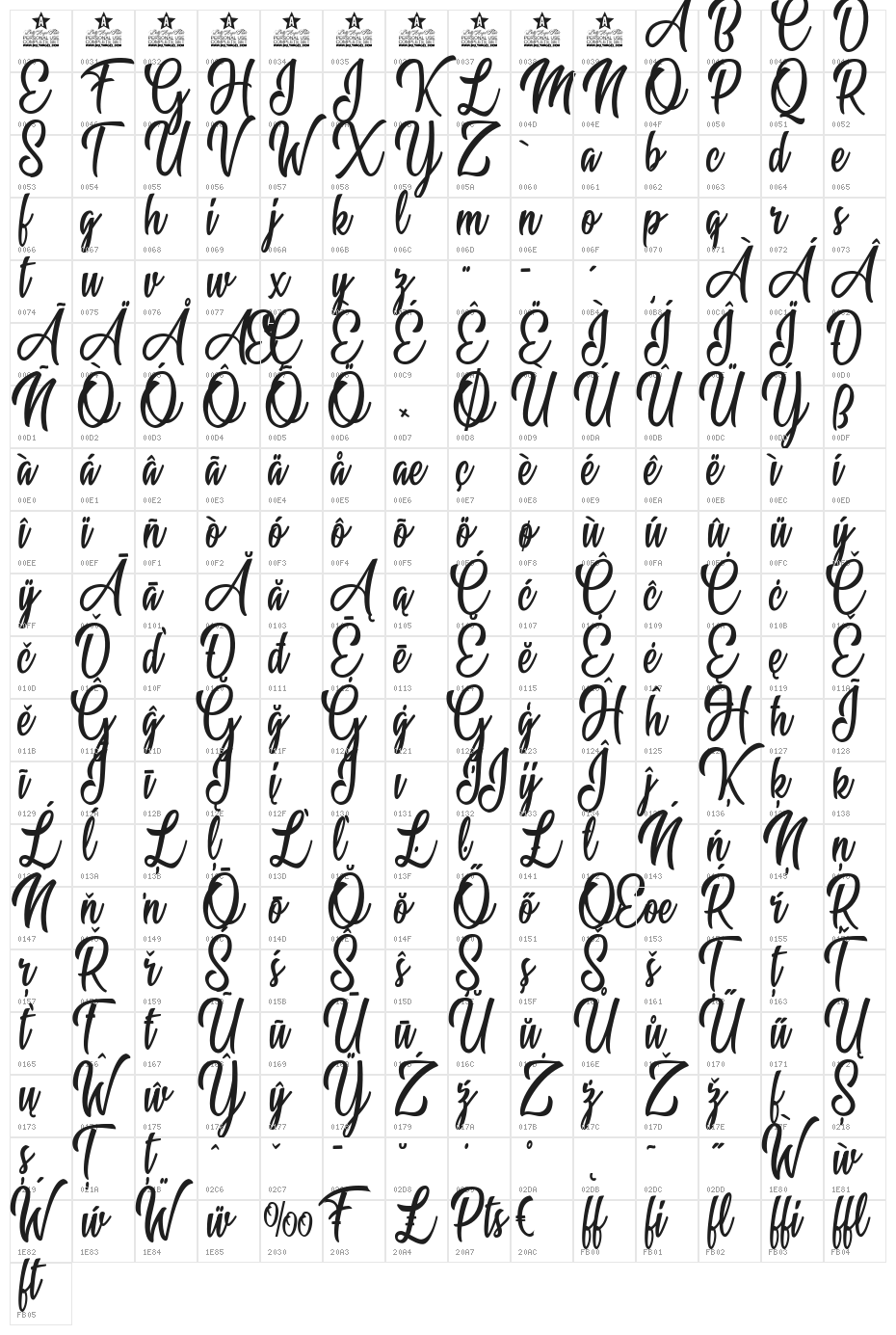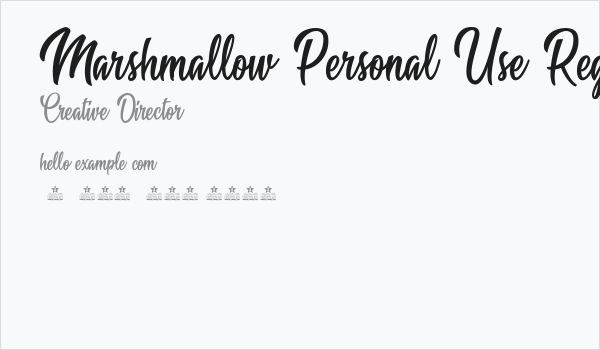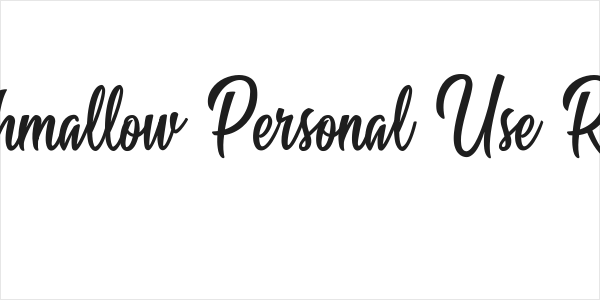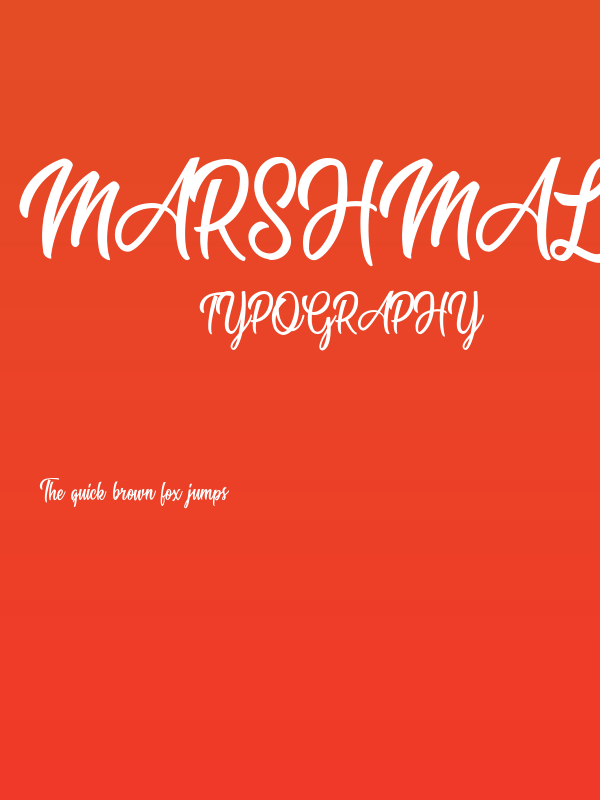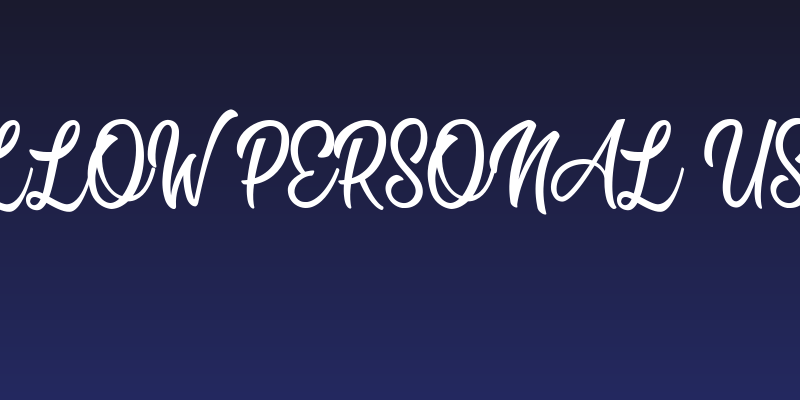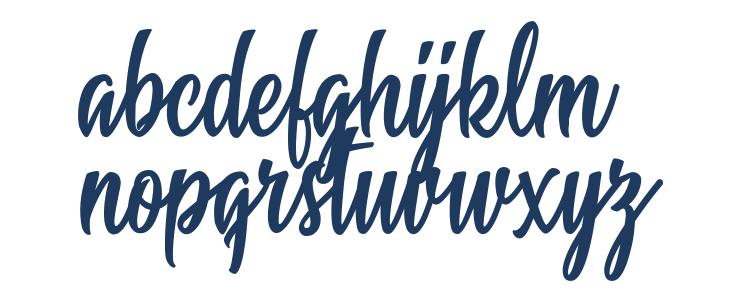
Marshmallow Personal Use Regular Font
Marshmallow Personal Use Regular Description
This font features a flowing, cursive style with elegant and smooth curves. The characters are interconnected, giving a handwritten appearance that is both stylish and sophisticated. The uppercase letters are bold and prominent, while the lowercase letters maintain a consistent flow, enhancing readability. The strokes are thick, providing a strong visual impact, and the overall design exudes a sense of creativity and flair. This font is ideal for projects that require a personal touch, such as invitations, greeting cards, or branding materials.
| Proposed Projects | Ideal for invitations, greeting cards, branding, and creative projects. |